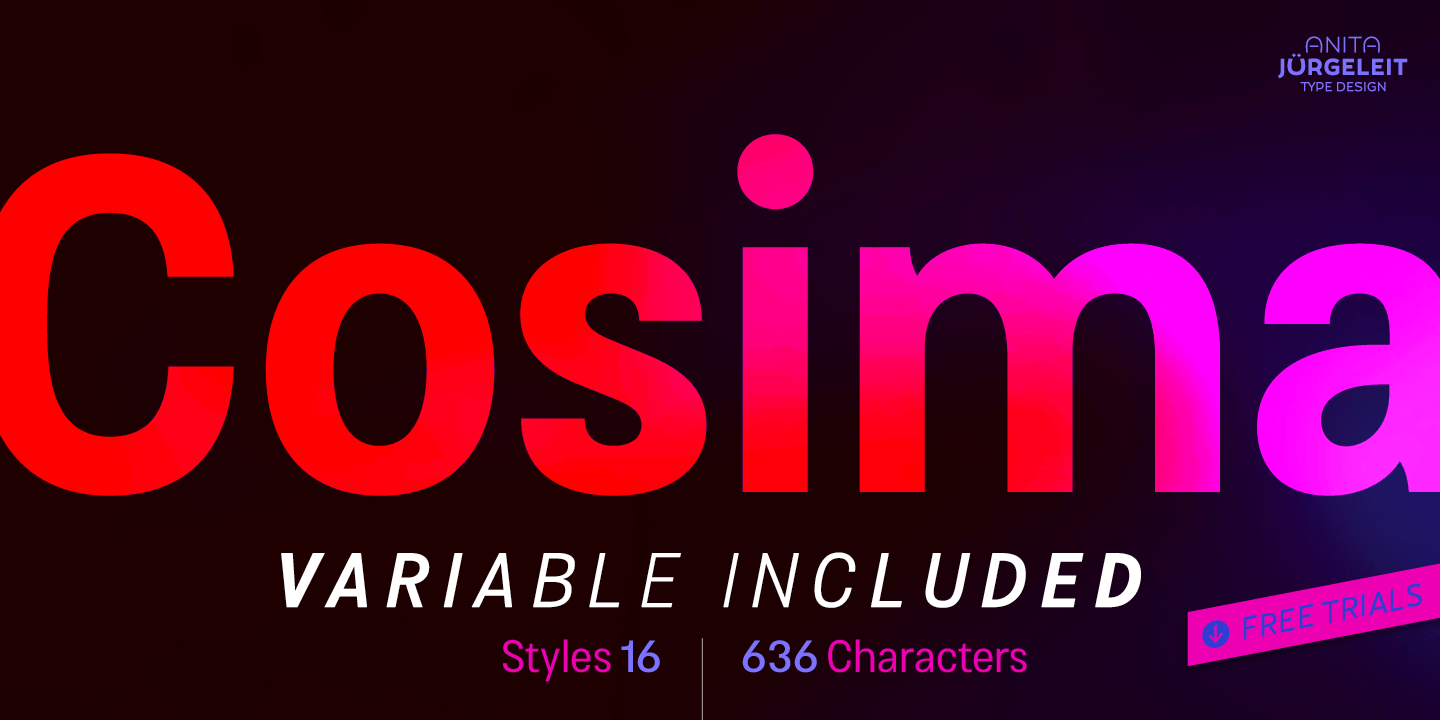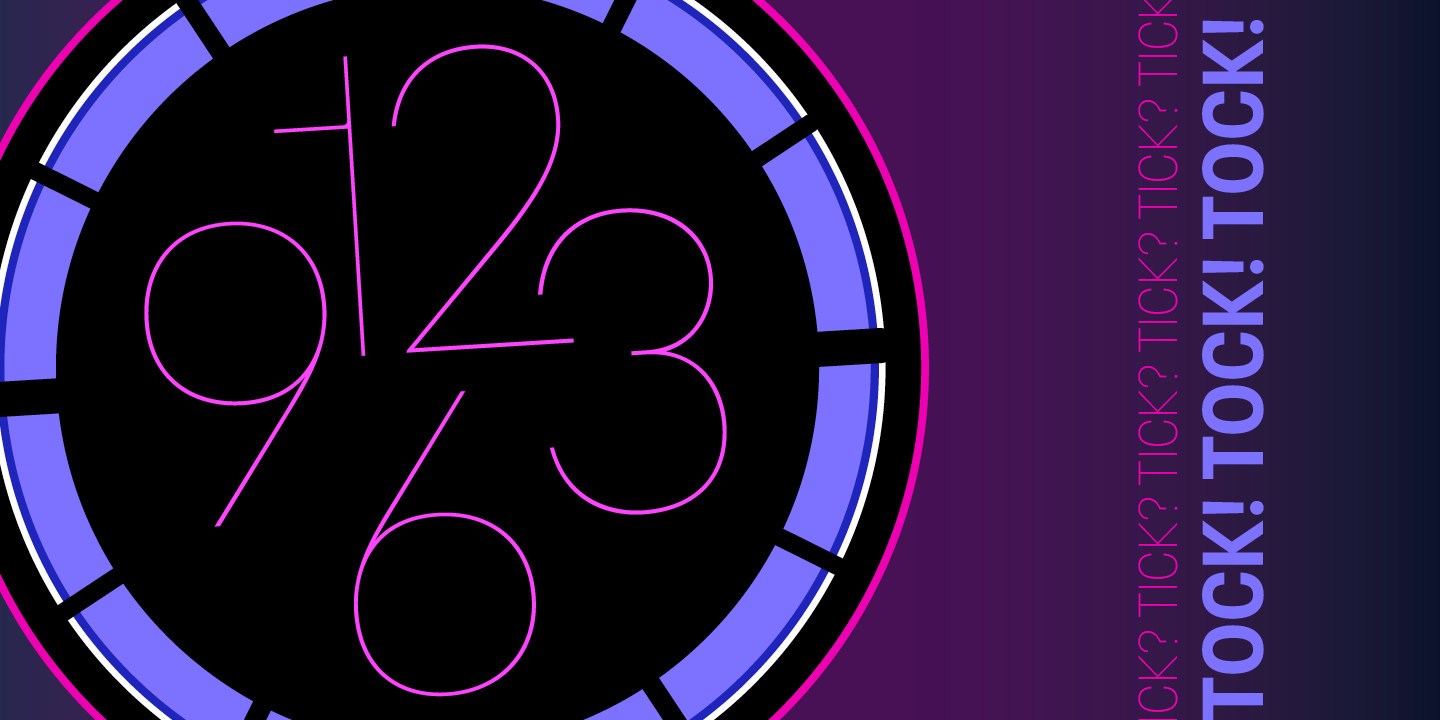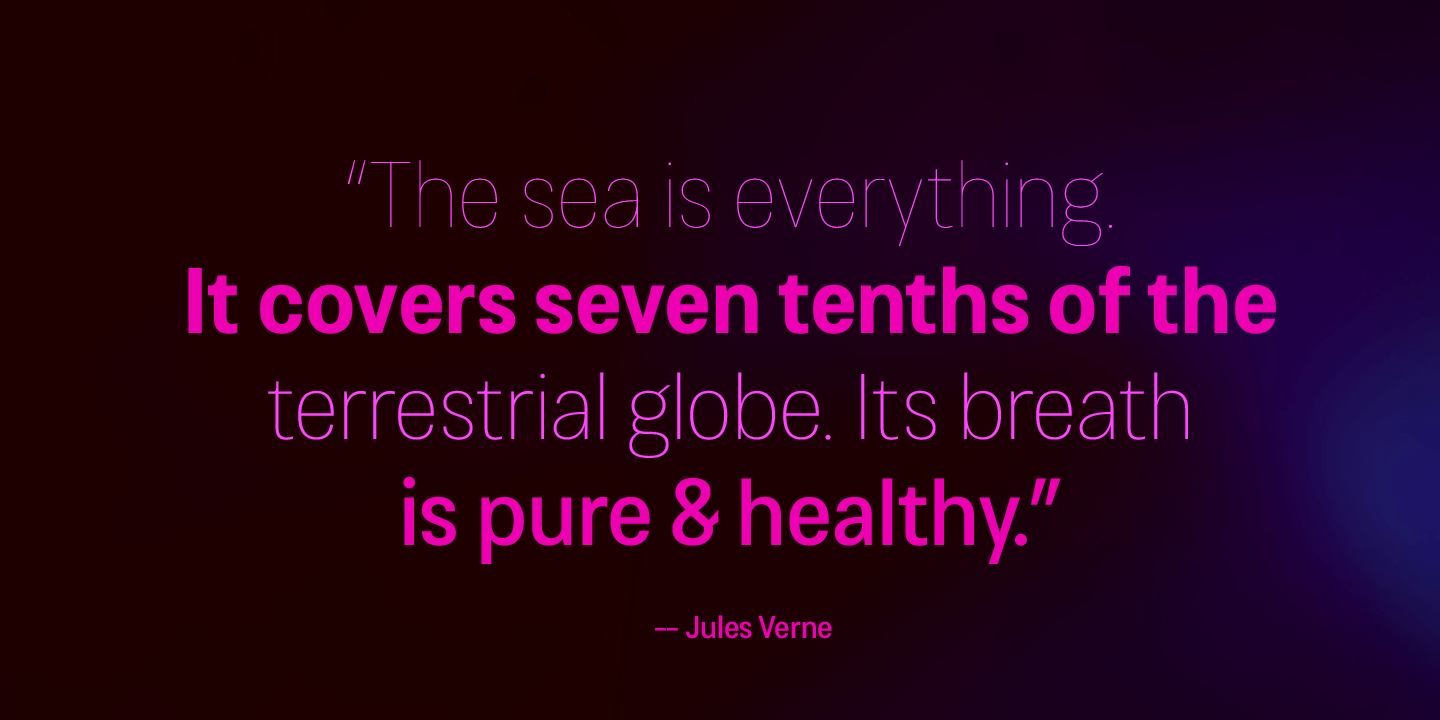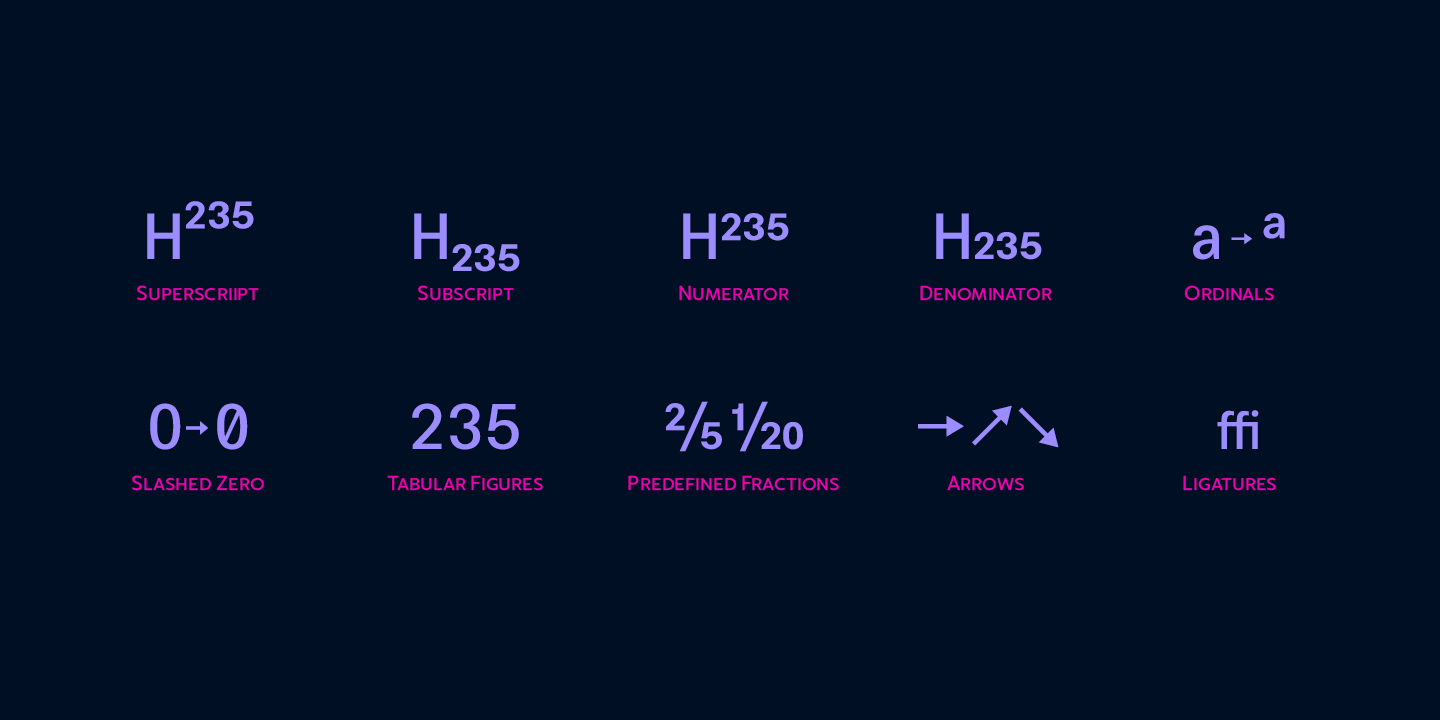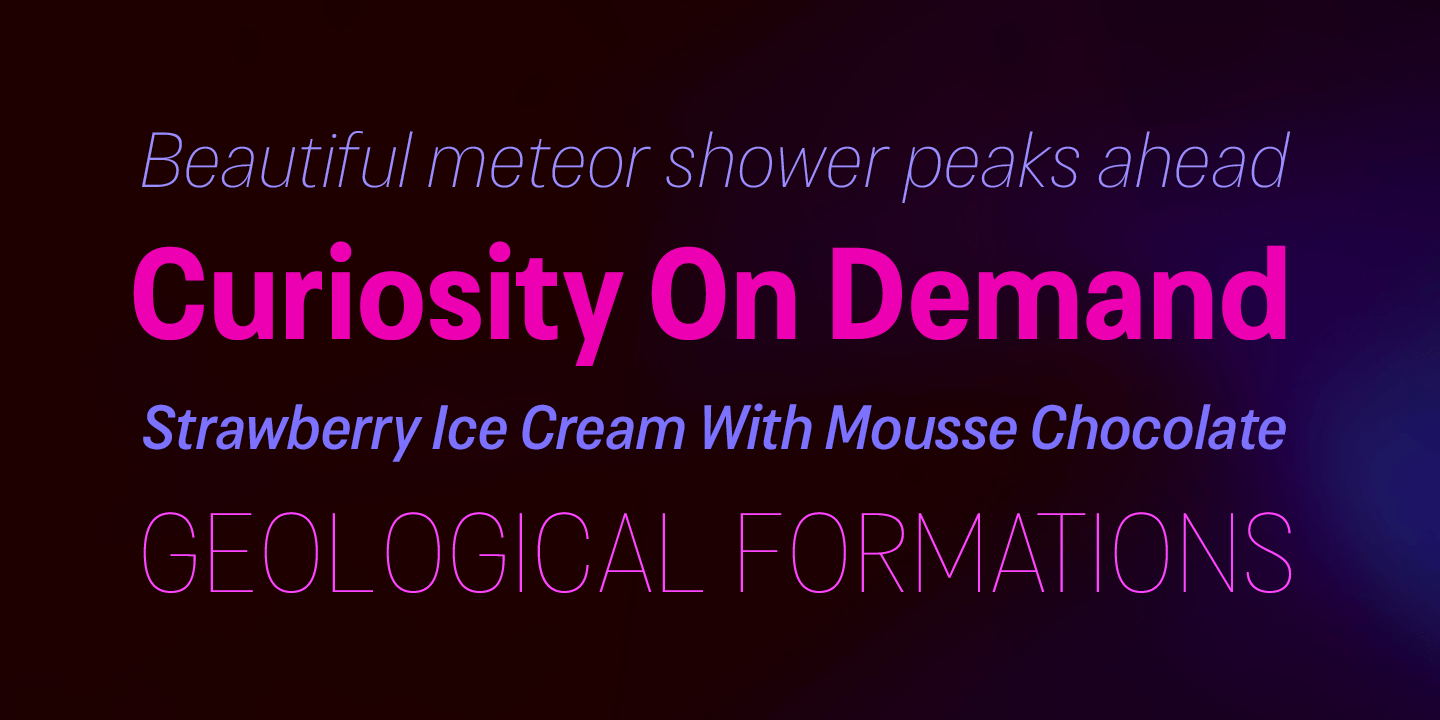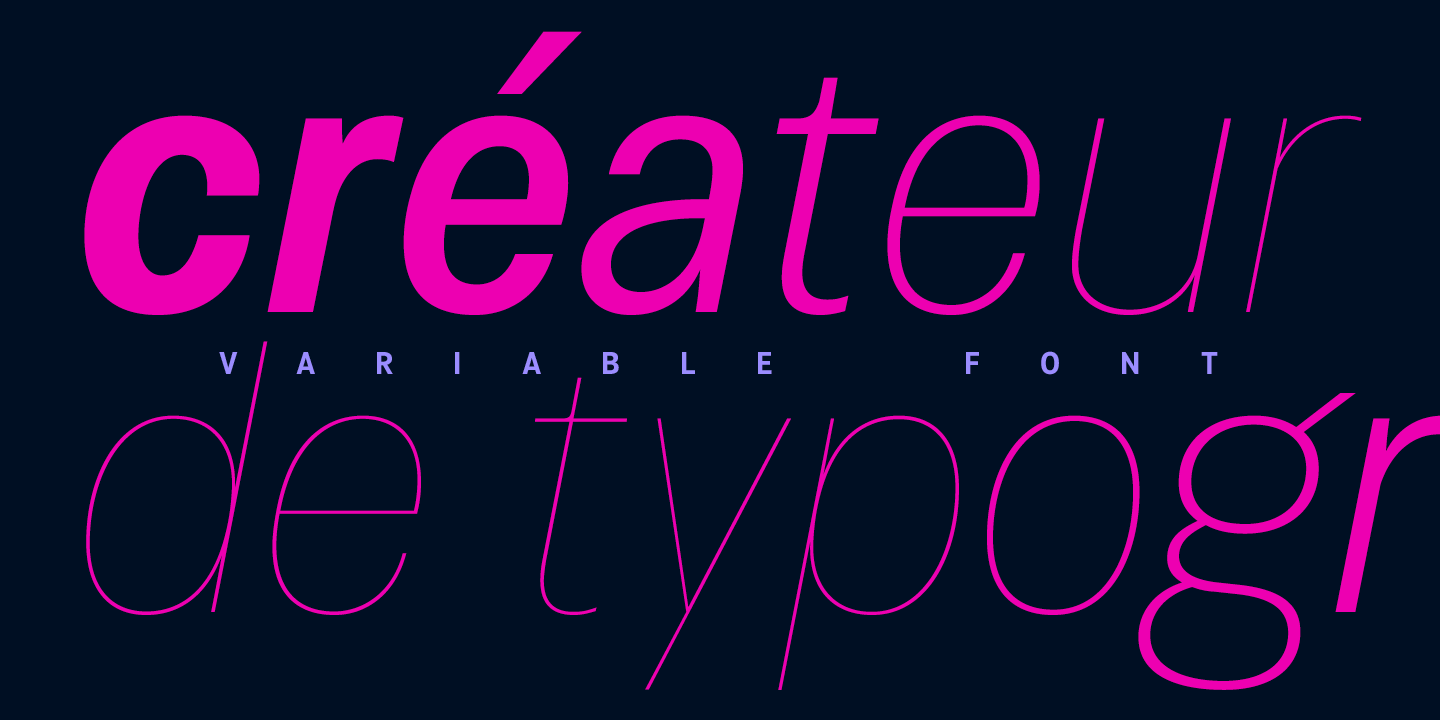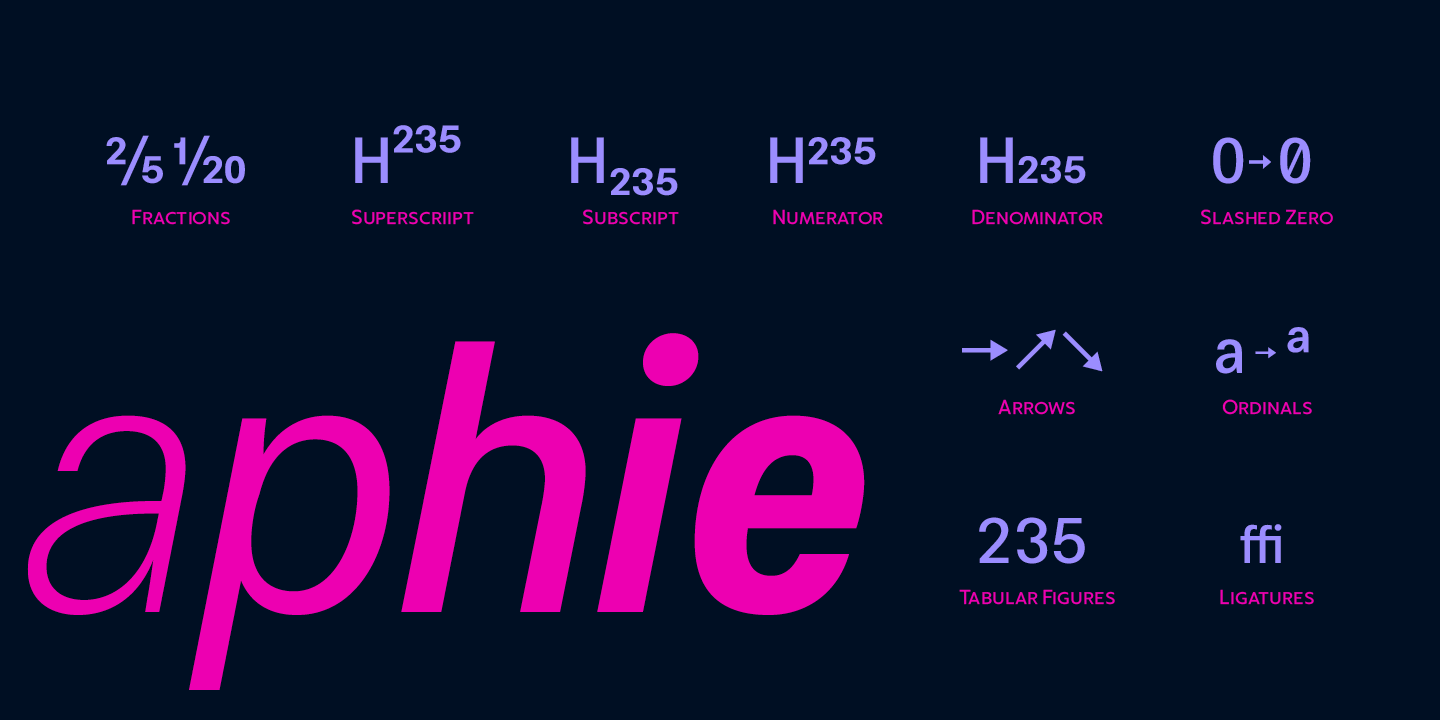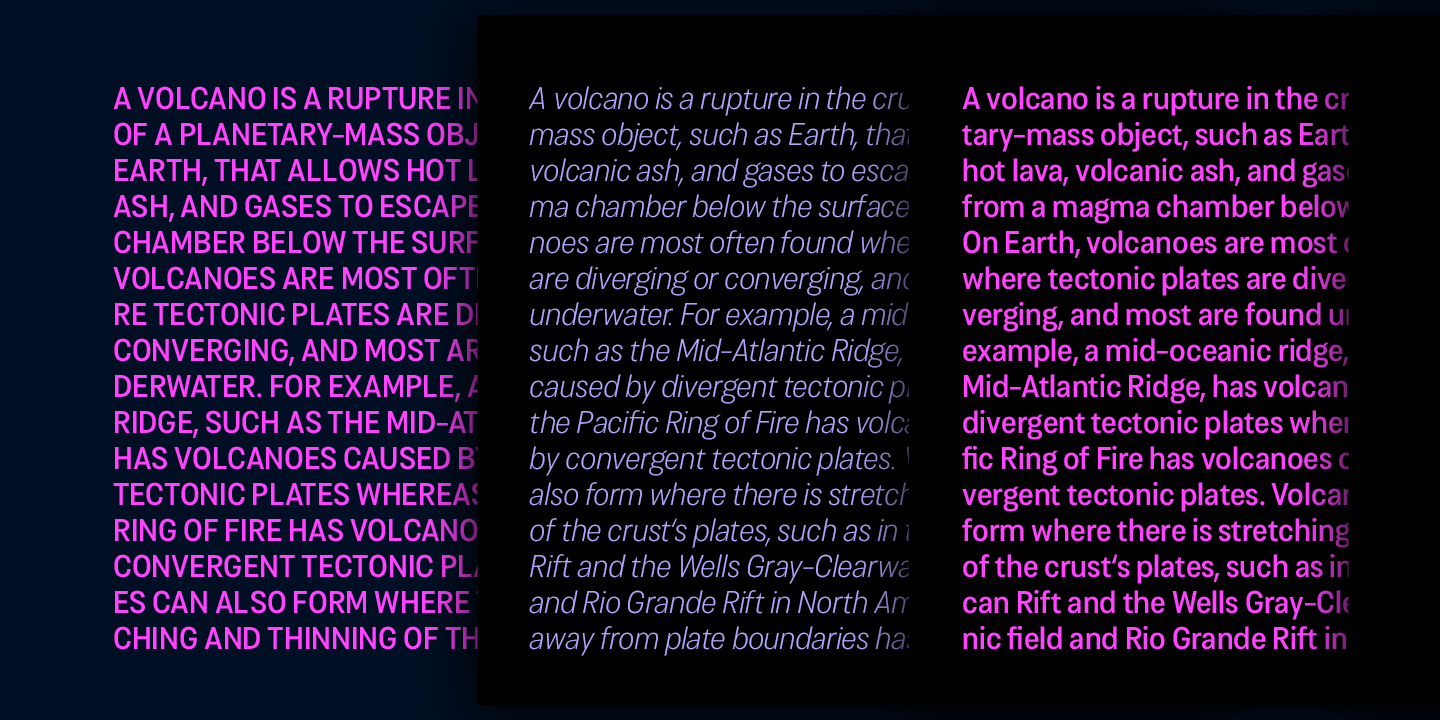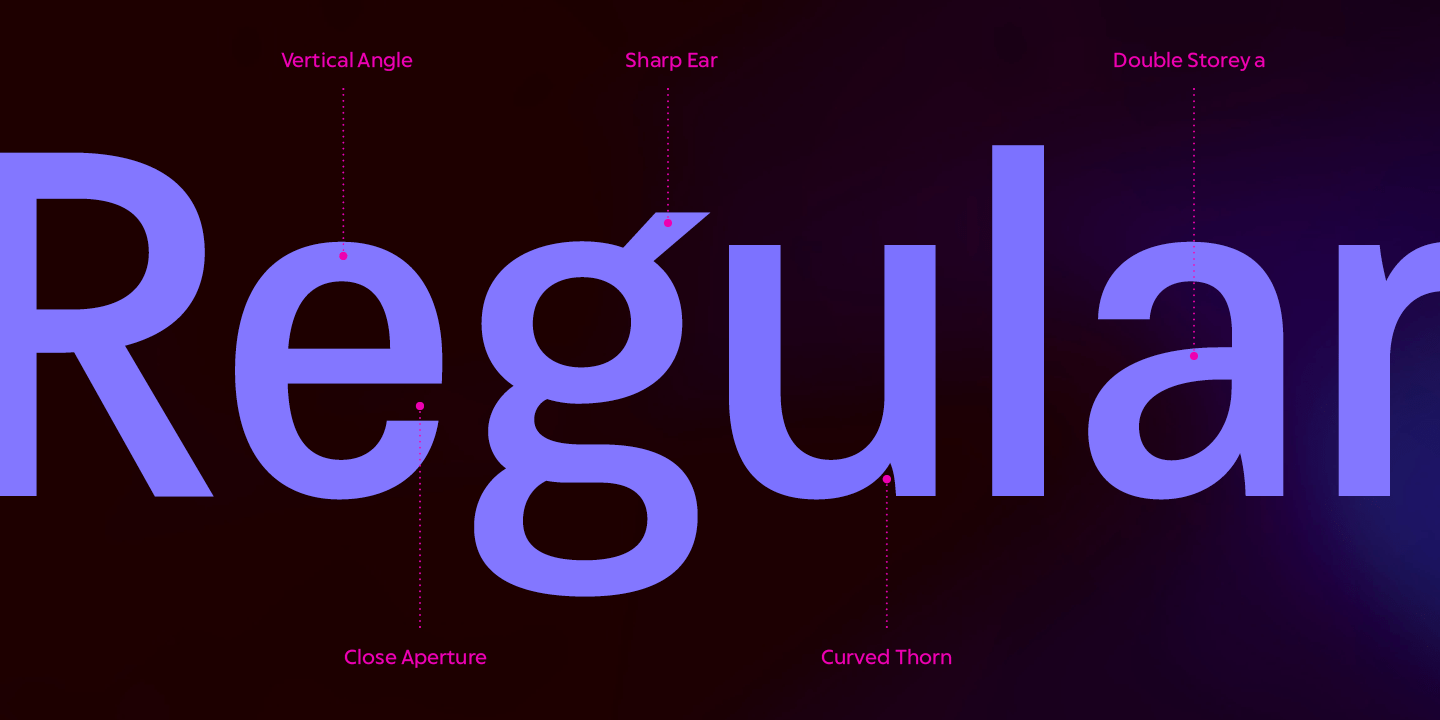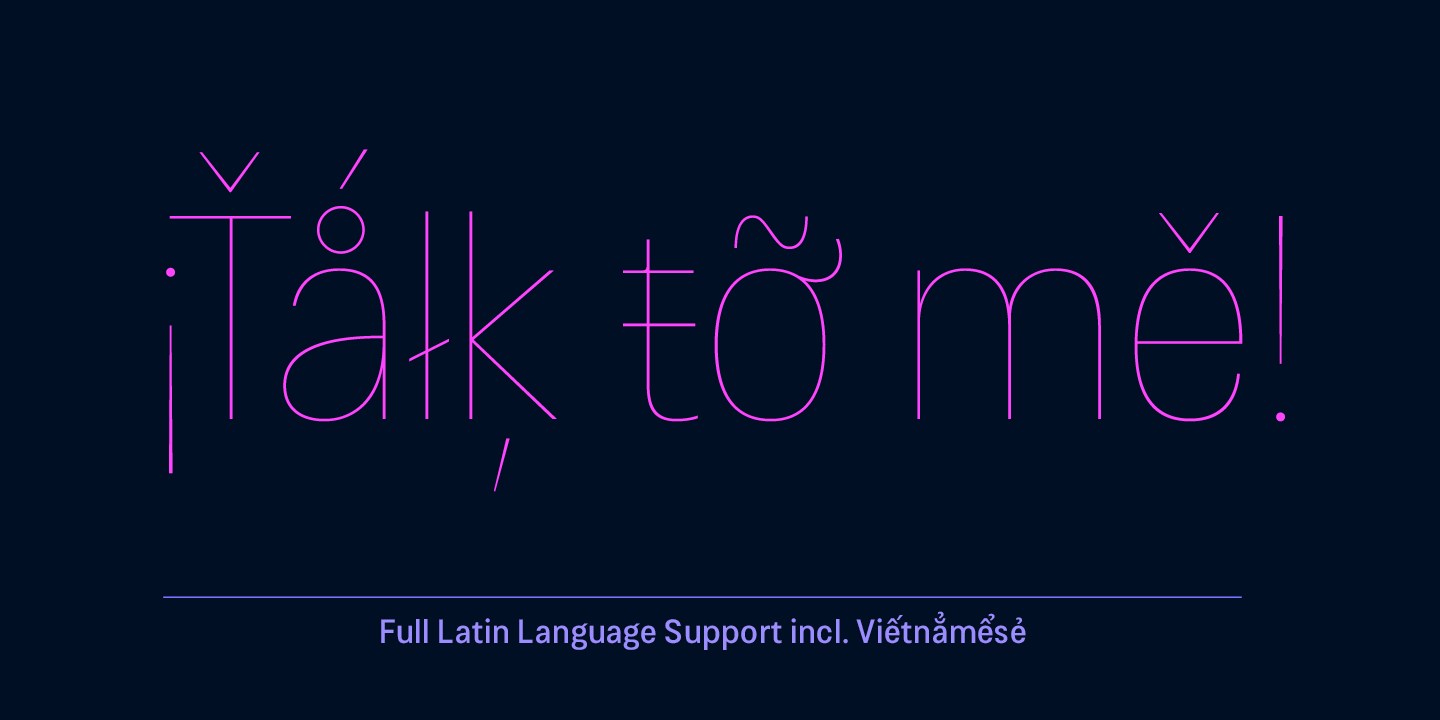
Cosima
Font Family by TypeThis!Studio
Cosima is a sans serif workhorse with a touch of pointy elegance.
Launching your new brand or creating a new user interface for your mobile devices – selecting characteristic typefaces is important, whether you’re creating app design, magazine or editorial – typography is always the essential part.
Cosima’s vertically and horizontally cut stems with their curved thorns let it appear with a sharp and steady elegance. Slightly narrowed characters and expanded lowercase heights carrying joyful designed details which show up in larger sizes.
This type family is available in 16 styles, matching italics and two variable font styles. Cosima covers all Latin languages, including Vietnamese and provides an extended set of fractions, sub- and superscripts, lining and tabular figures as well as a slashed zero.
Typeface Features
• 637 Characters
• 16 Styles (Hairline, UltraThin, Thin, UltraLight, Light, Regular, Medium, Bold + Italics)
• Sub-/Superscript
• Numeratores/Denominators
• Fractions
• Ordinals
• Proportional Figures
• Tabular Figures
• Standard Ligatures
• Slashed Zero